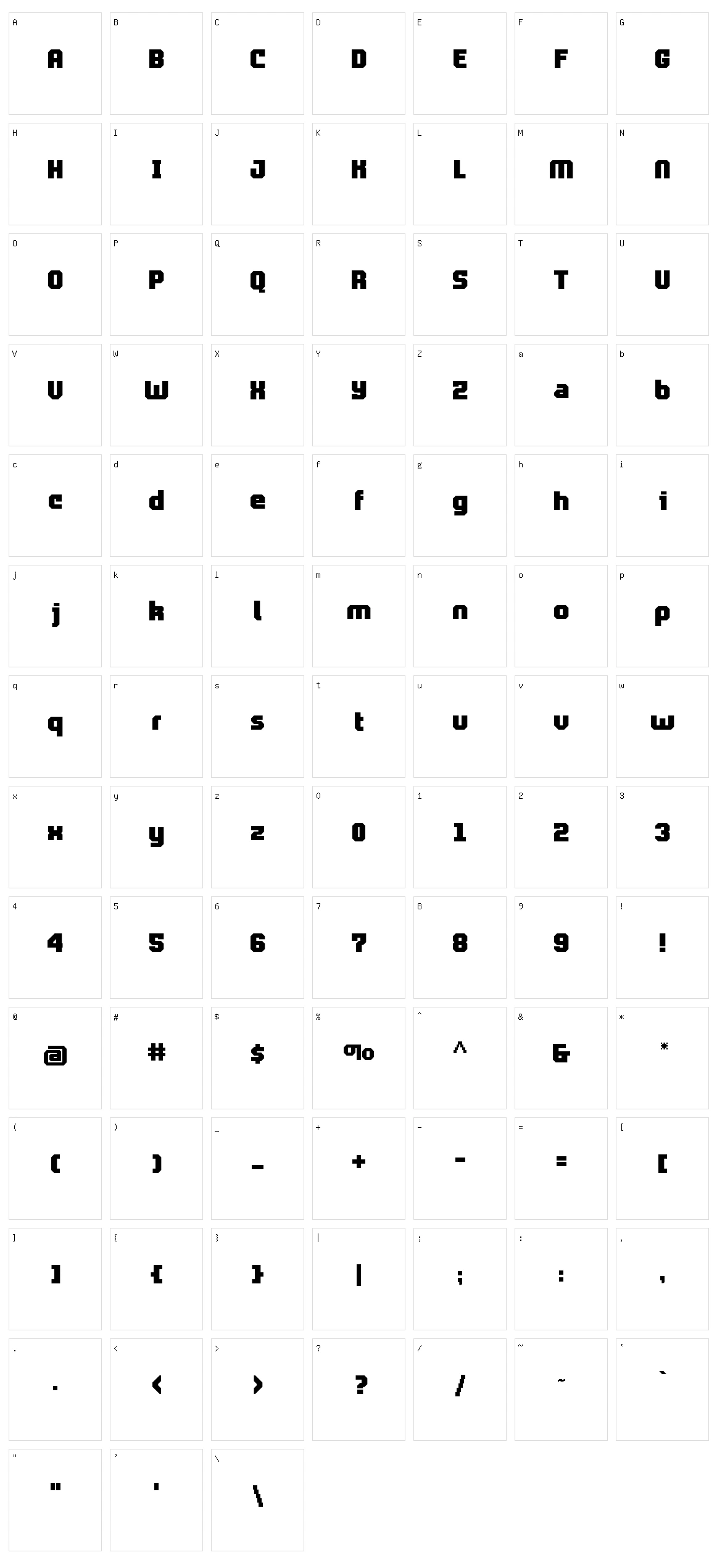
The free font ProLamina 2 is carefully designed by CabreraTypo, showcasing a thoughtful balance of creativity and usability and falls under the Square font style. When you download the ZIP file, it contains only 13.42 KB of font files, making it lightweight and quick to download. Please review the license details below to understand permitted usage and distribution rights. If license information is not available, we recommend using this font for personal projects only or contacting the author directly for commercial usage permissions.